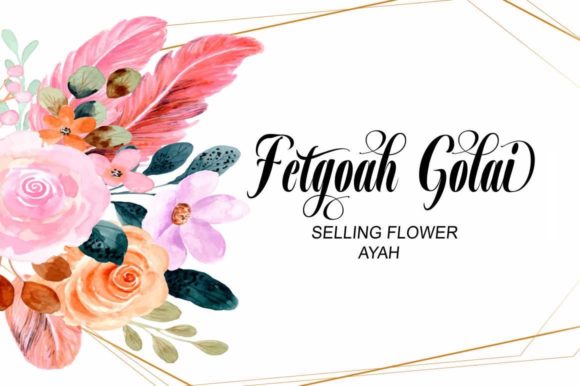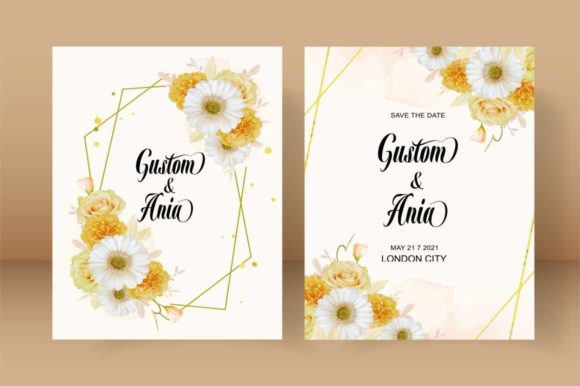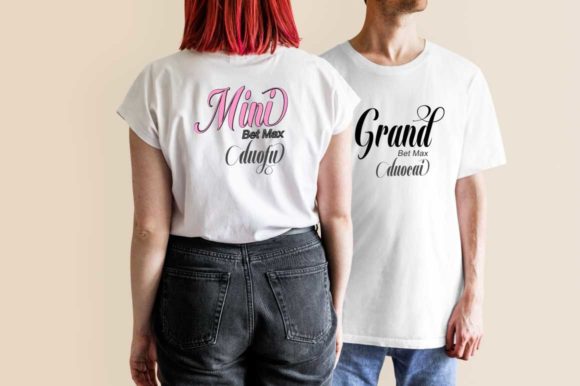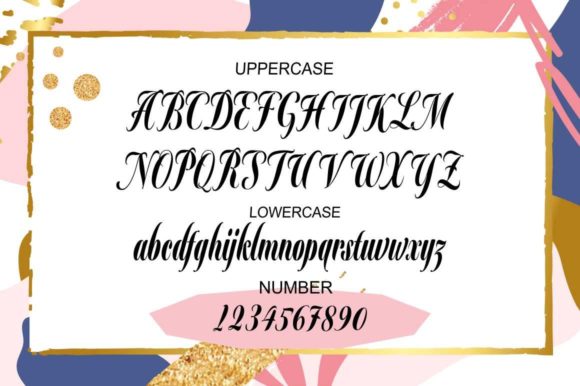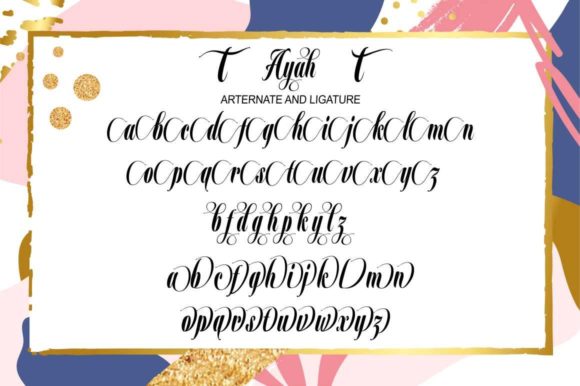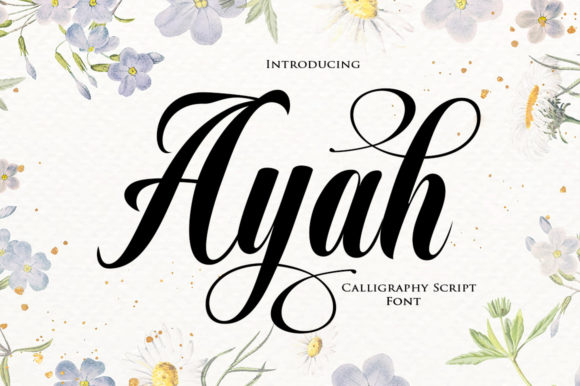
Ayah Font: Elevate Your Designs with Elegance and Sophistication
In the world of typography, a beautiful font can make all the difference in creating stunning designs that capture the essence of a brand or message. One such font that has gained significant attention in recent times is the Ayah Font. This gorgeous script font boasts a classy, elegant, and modern look, making it an ideal choice for a wide range of formal and informal designs.
What Makes Ayah Font Stand Out?
Ayah Font is a refined script font that exudes sophistication and poise. Its elegant strokes, beautiful swashes, and intricate details make it a perfect fit for designers and crafters looking to add a touch of luxury to their work. Whether you’re creating wedding invitations, branding materials, or social media graphics, Ayah Font is sure to impress.
Key Features of Ayah Font
- Classy and Elegant Design: Ayah Font features a beautiful, refined design that is perfect for formal and informal designs.
- Modern Look: The font has a modern look that will make your designs stand out from the crowd.
- Versatile: Ayah Font can be used for a wide range of designs, including wedding invitations, branding materials, social media graphics, and more.
Benefits of Using Ayah Font
Using Ayah Font in your designs can have numerous benefits. For one, it can instantly elevate the look and feel of your work, making it more sophisticated and elegant. Additionally, the font’s versatility means you can use it for a wide range of projects, from formal events to casual social media posts.
Tips and Tricks for Working with Ayah Font
- Pair it with Other Fonts: Ayah Font pairs well with other fonts, such as sans-serif fonts, to create a beautiful contrast.
- Experiment with Swashes: The font’s swashes can add a touch of elegance to your designs. Experiment with different swashes to find the one that works best for your project.
- Use it for Headings and Titles: Ayah Font is perfect for headings and titles, where you want to make a statement.
Who Can Benefit from Ayah Font?
Ayah Font is perfect for designers, crafters, and anyone looking to add a touch of elegance to their work. This includes:
- Graphic Designers: Graphic designers can use Ayah Font to create stunning branding materials, social media graphics, and more.
- Stationery Designers: Stationery designers can use Ayah Font to create beautiful wedding invitations, greeting cards, and other paper goods.
- Crafters: Crafters can use Ayah Font to create beautiful handmade cards, gift tags, and other craft projects.
In conclusion, Ayah Font is a beautiful and refined script font that can elevate your designs to the next level. Its classy, elegant, and modern look makes it perfect for a wide range of formal and informal designs. With its PUA encoding and versatile design, Ayah Font is a must-have for designers and crafters looking to add a touch of sophistication to their work.